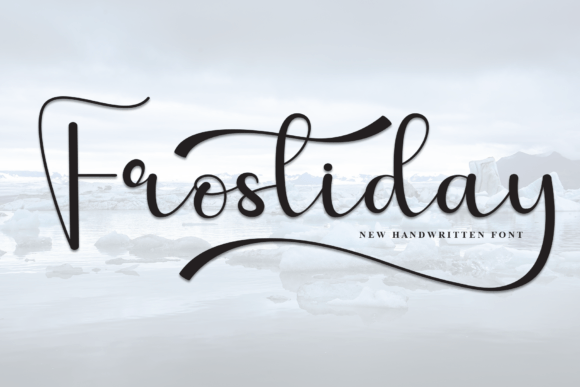
Frostiday Font: A Delightful and Endearing Handwritten Display Font
Are you looking for a font that can add a touch of warmth and charm to your design projects? Look no further than the Frostiday Font, a delightful and endearing handwritten display font that is perfect for a variety of creative endeavors. With its adorable and playful allure, this font is sure to capture the hearts of designers and crafty enthusiasts alike.
What is Frostiday Font?
Frostiday Font is a carefully crafted handwritten display font that exudes warmth and charm. Its unique and playful design makes it perfect for a range of applications, from wedding invitations and heartfelt cards to cheerful design projects. This font is designed to bring a personal touch to your creations, making them stand out from the crowd.
Characteristics of Frostiday Font
The Frostiday Font boasts a range of characteristics that make it a standout choice for designers and crafty enthusiasts. Some of its key features include:
- Handwritten design: The Frostiday Font features a beautiful, handwritten design that is both personal and charming.
- Playful allure: This font has a playful and adorable allure that makes it perfect for a range of creative projects.
- Warmth and charm: The Frostiday Font oozes warmth and charm, making it perfect for designs that require a personal touch.
- Versatile: This font is versatile and can be used for a range of applications, from wedding invitations to design projects.
Uses of Frostiday Font
The Frostiday Font is perfect for a range of creative projects, including:
- Wedding invitations: This font is perfect for wedding invitations, adding a touch of warmth and charm to your special day.
- Heartfelt cards: The Frostiday Font is ideal for crafting heartfelt cards for special occasions, such as birthdays, anniversaries, and holidays.
- Design projects: This font can be used to add a cheerful touch to any design project, from brochures and flyers to posters and social media graphics.
Benefits of Using Frostiday Font
There are many benefits to using the Frostiday Font, including:
- Personal touch: This font adds a personal touch to your designs, making them stand out from the crowd.
- Easy to read: The Frostiday Font is easy to read, making it perfect for designs that require a clear and concise message.
- Versatile: This font is versatile and can be used for a range of applications.
- Unique: The Frostiday Font is a unique and original design, ensuring that your creations will stand out from the crowd.
Tips and Tricks
Here are a few tips and tricks to help you get the most out of the Frostiday Font:
- Experiment with sizes: Experiment with different font sizes to create visual interest and hierarchy in your designs.
- Mix and match: Mix and match the Frostiday Font with other fonts and design elements to create a unique and eye-catching design.
- Use it sparingly: Use the Frostiday Font sparingly to create emphasis and add a touch of personality to your designs.
In conclusion, the Frostiday Font is a delightful and endearing handwritten display font that is perfect for a range of creative projects. With its adorable and playful allure, this font is sure to capture the hearts of designers and crafty enthusiasts alike. Whether you’re creating wedding invitations, heartfelt cards, or design projects, the Frostiday Font is a great choice for adding a touch of warmth and charm to your creations.
Here are a few frequently asked questions about the Frostiday Font:
- What is the Frostiday Font?: The Frostiday Font is a handwritten display font that features a unique and playful design.
- Is the Frostiday Font easy to read?: Yes, the Frostiday Font is easy to read and can be used for a range of applications.